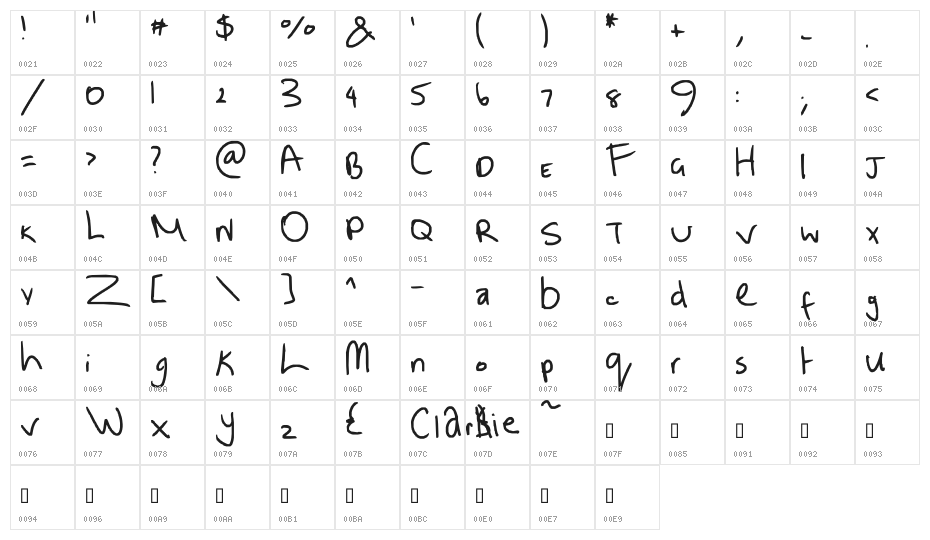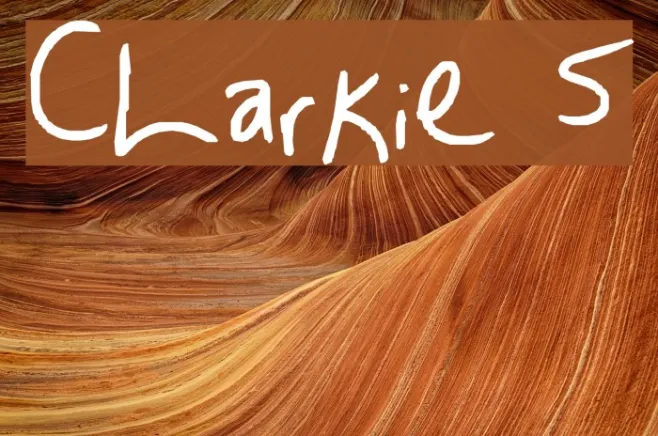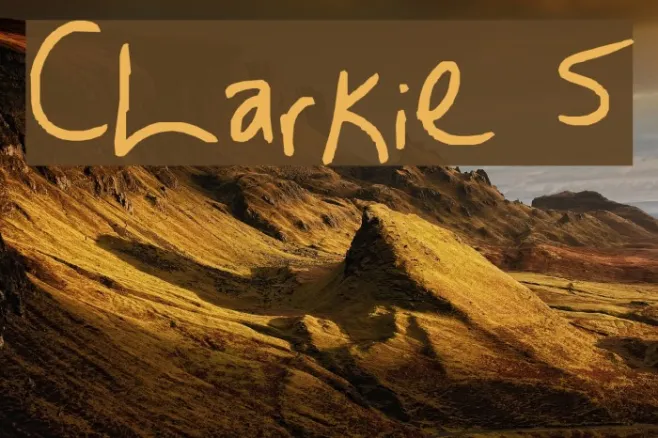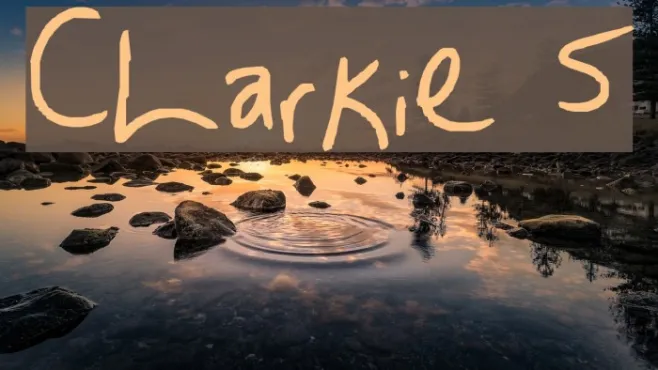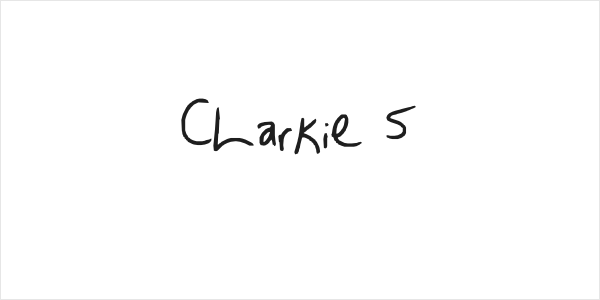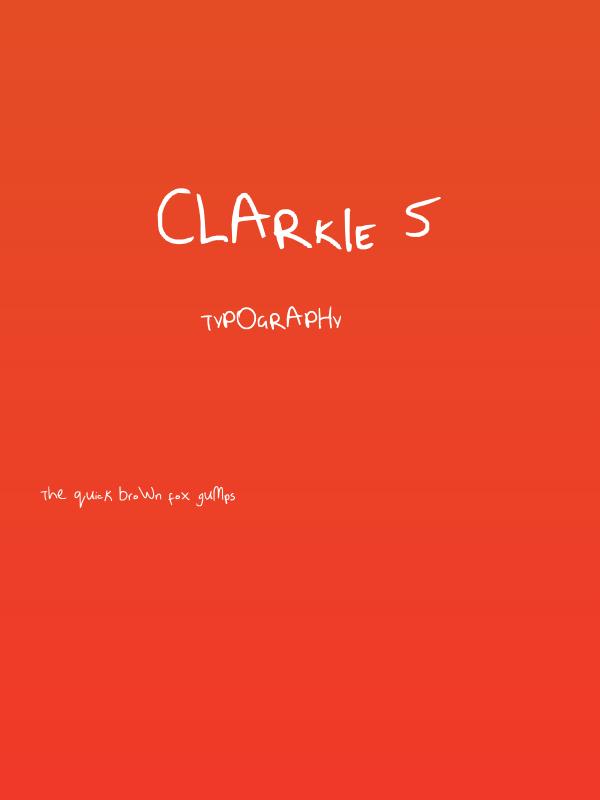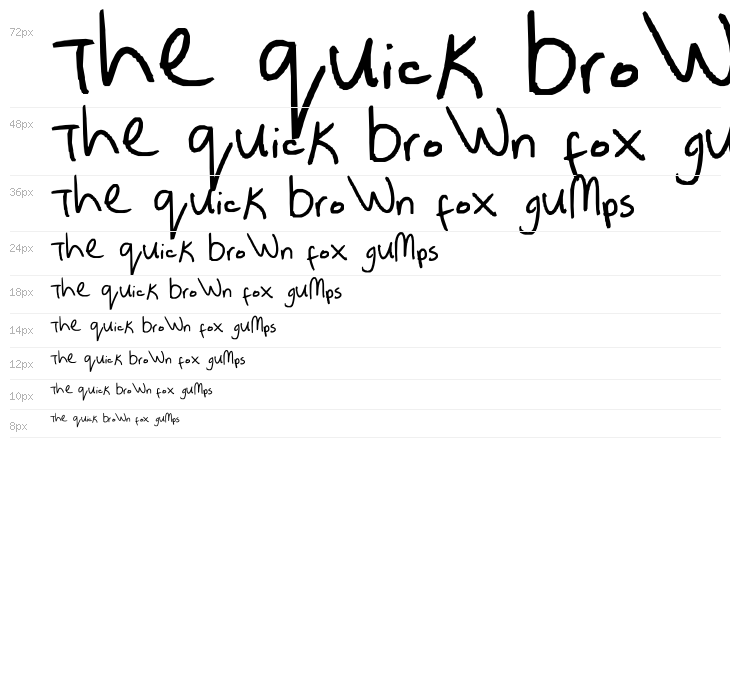
Clarkie 5 Font
Clarkie 5 Description
This font exhibits a casual, handwritten style that mimics the natural flow of penmanship. The characters are unevenly spaced, with a playful and informal appearance. The strokes are varied, with some letters featuring thicker lines and others appearing more delicate. This inconsistency adds to the charm and authenticity of the handwritten look. The uppercase and lowercase letters are distinct, with a noticeable difference in size and style. Numbers and special characters maintain the same casual aesthetic, making the font versatile for various informal applications.
Overall StyleCasual
Use CaseCreative projects, informal communication, personal notes.
Proposed ProjectsIdeal for personal notes, greeting cards, informal invitations, and creative projects that require a personal touch.